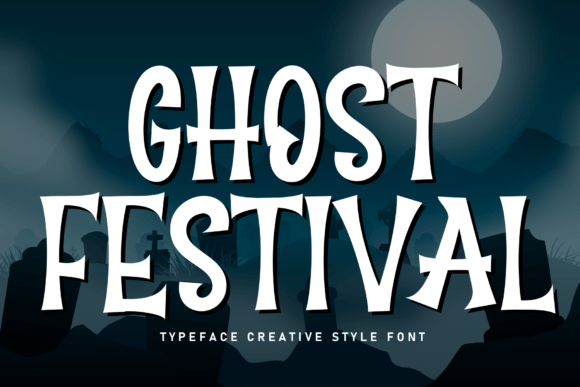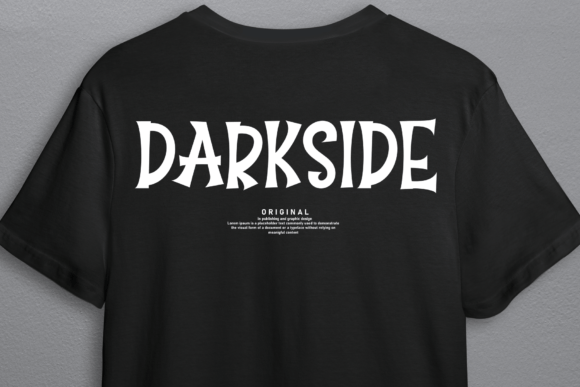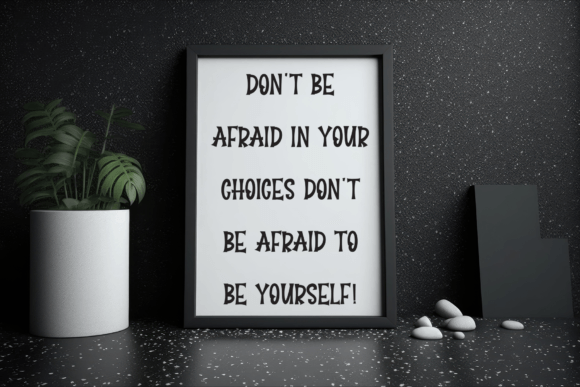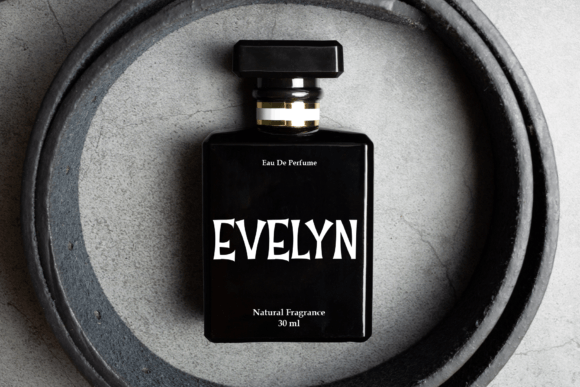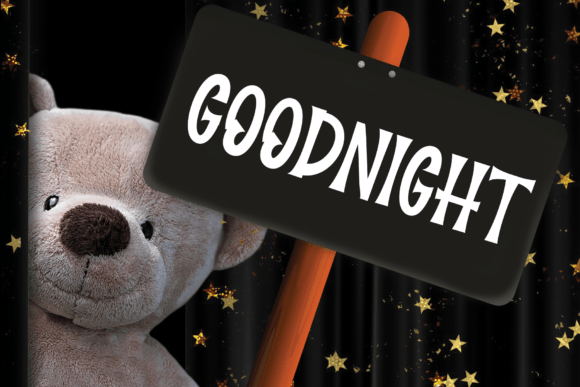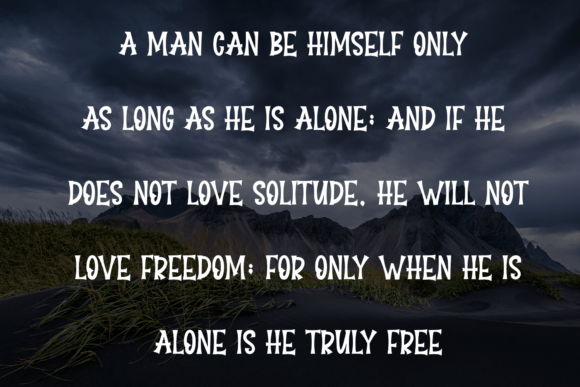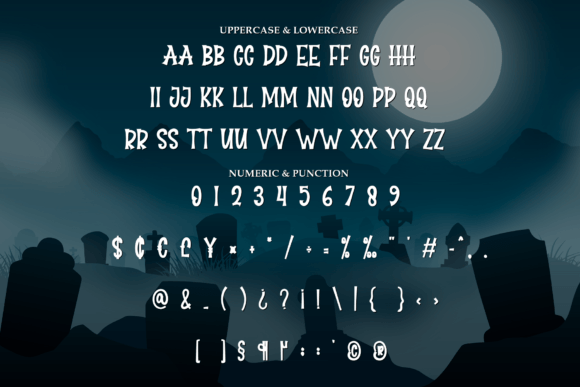
Unlock Your Creativity with the Enchanting Ghost Festival Font
Have you ever sat in front of your computer, staring at a blank screen, and suddenly, a burst of inspiration hits you? You see a vision of your project come to life, with bold typography and striking colors. This is exactly what the Ghost Festival Font aims to evoke – a sense of magic and wonder that brings your creative ideas to the forefront.
As a masterfully designed display font, Ghost Festival Font is perfect for adding a touch of whimsy and elegance to your designs. Whether you’re a graphic designer, digital artist, or simply someone who loves experimenting with typography, this font is sure to become a true favorite. Its unique character and versatility make it an invaluable asset for designers looking to elevate their work.
Ghost Festival Font Key Features
- Unique Characteristics: The Ghost Festival Font features a unique, hand-drawn aesthetic with intricate details and subtle texture, giving it a distinctive and eye-catching look.
Designer Review: Ghost Festival Font
Overall, I think the Ghost Festival Font is a unique and captivating choice for any design project. ✨ The font’s eclectic mix of Asian-inspired characters and modern flourishes creates a truly one-of-a-kind aesthetic.
- ✨ The font’s bold and expressive nature makes it perfect for headings and titles.
- ✨ The intricate details in the characters add a level of sophistication and depth to the font.
- ✨ The font’s versatility allows it to be used in a wide range of design projects, from logos to packaging to digital interfaces.
- ⚠️ The font’s complexity may make it difficult to read in certain contexts, such as small text sizes or low-resolution displays.
- ⚠️ The font’s unique style may not be suitable for all audiences or design projects, potentially limiting its use.
Overall, I would recommend the Ghost Festival Font for designers looking to add a touch of elegance and sophistication to their projects. While it may have some limitations, its unique character and versatility make it a great choice for the right design challenge.
For best results, use the Ghost Festival font in conjunction with dark backgrounds and bold colors.
Experiment with different font sizes and styles to create a unique and eye-catching design.
The Ghost Festival font is ideal for:
- Spooky or horror-themed designs.
- Asian-inspired or cultural-themed designs.
- Designs that require a mysterious or eerie atmosphere.